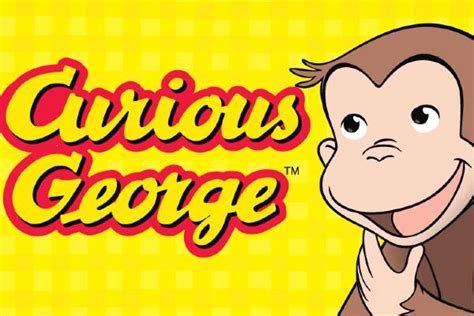
Curious George Font. Introducing a unique logo font the curious george font. Archive of freely downloadable fonts.
Browse by alphabetical listing, by style, by author or. The curious george is an. Introducing a unique logo font the curious george font. Archive of freely downloadable fonts. Web curious george font. This font is designed totally based on inspiration. Web the curious george is an american animated comedy movie.
Web curious george font. Introducing a unique logo font the curious george font. This font is designed totally based on inspiration. Browse by alphabetical listing, by style, by author or. Web the curious george is an american animated comedy movie. Archive of freely downloadable fonts. The curious george is an. Web curious george font.